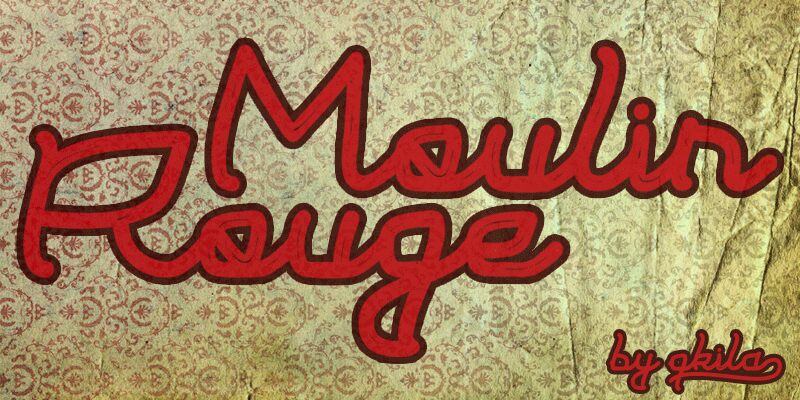
Moulin Rouge is a captivating handwritten font that exudes a sense of elegance and sophistication. Designed by QKila, this expanded font showcases a harmonious blend of flowing curves and sharp, angular strokes, creating a visually striking and dynamic aesthetic. The Moulin Rouge font would be well-suited for a variety of design applications, from luxury branding and high-end packaging to editorial layouts and event invitations, where a touch of vintage-inspired charm is desired.
Its versatility and eye-catching presence make it a standout choice for designers seeking to infuse their projects with a touch of Parisian flair.
Moulin Rouge